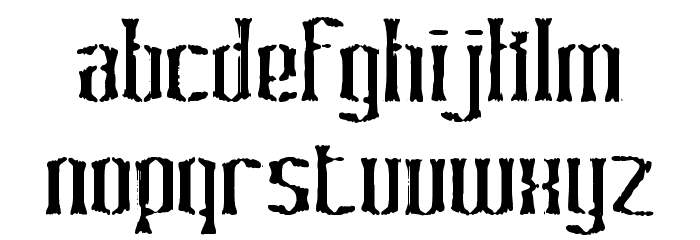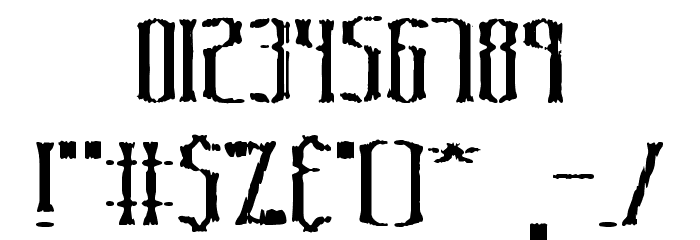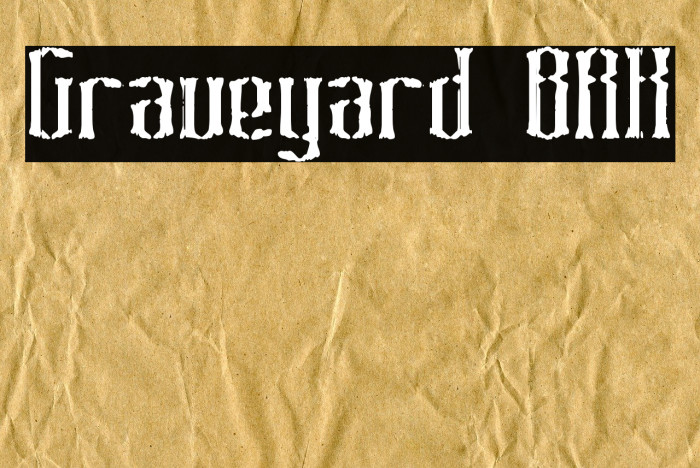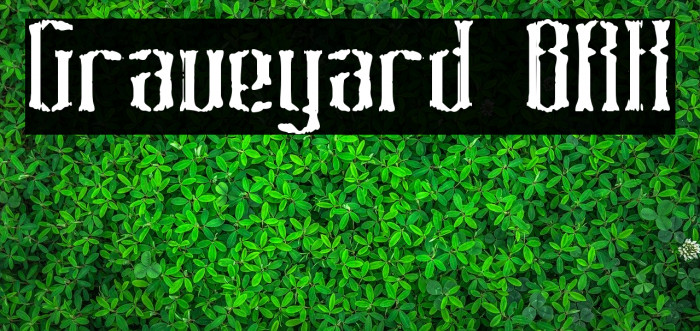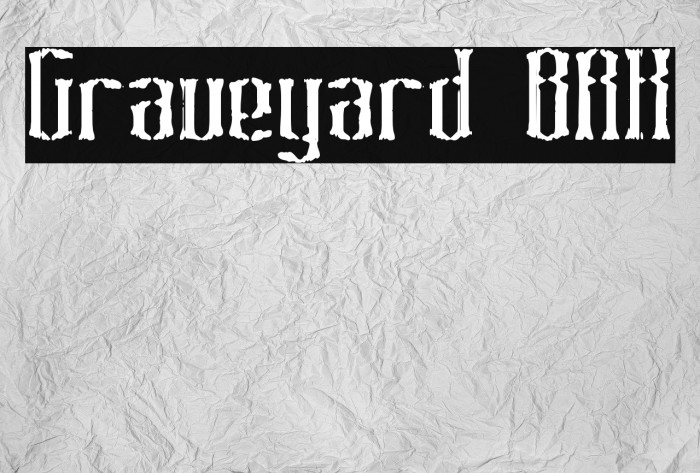
Graveyard BRK Font
This font features a gothic and distressed style, with sharp edges and irregular contours that evoke a sense of mystery and antiquity. The characters are tall and narrow, with a slightly uneven baseline that adds to the eerie, hand-crafted appearance. The uppercase letters are bold and commanding, while the lowercase letters maintain the same rugged texture, creating a cohesive look. Numbers and special characters are designed with the same attention to detail, ensuring consistency across all glyphs. The overall aesthetic is reminiscent of old tombstone engravings, making it ideal for projects that require a spooky or historical theme.
A gothic, distressed font with sharp edges and a mysterious, antique feel.
- Proposed Projects: Perfect for Halloween-themed designs, horror movie posters, haunted house flyers, or any project needing a spooky, historical touch.
- Overall Style: Gothic, Vintage
- Use Case: Headlines, Posters, Themed Events